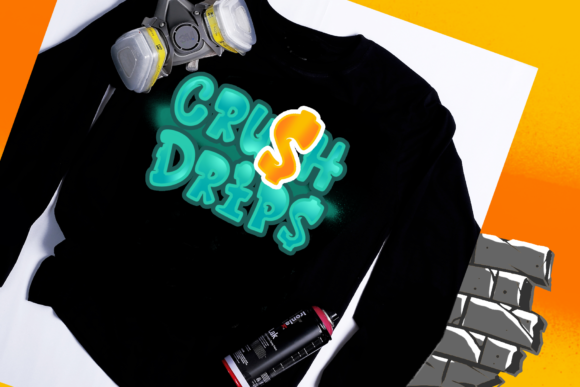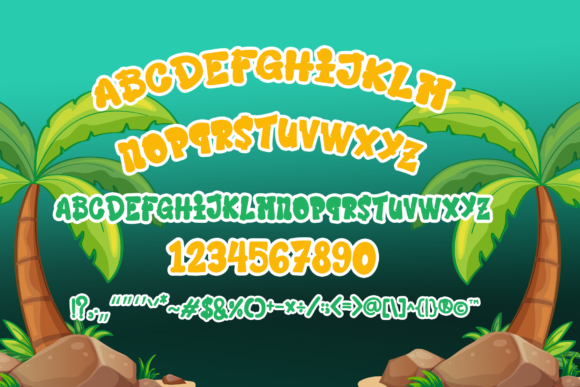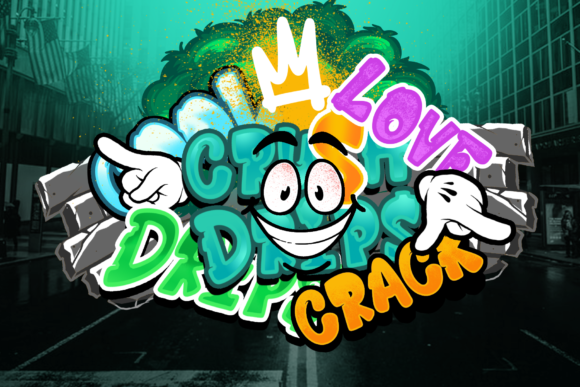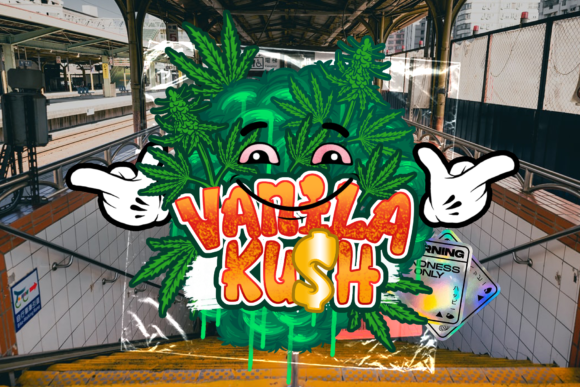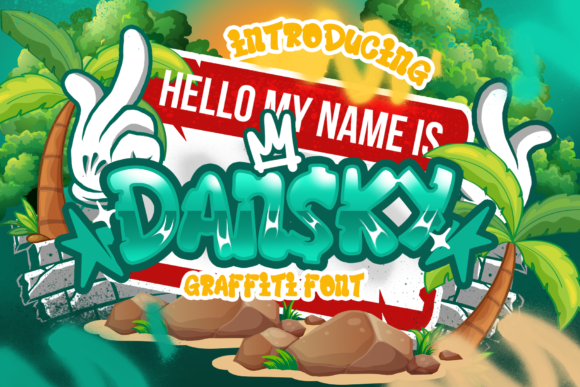
Introducing Dansky Font: The Playful and Authentic Display Font for Creative Projects
Are you looking for a font that embodies playfulness and authenticity? Look no further than Dansky Font! This cool, bubbly, and thick lettered display font is perfect for any children activity or school project, especially when combined with bright colors. In this article, we’ll dive into the features and benefits of Dansky Font, and explore how it can elevate your creative projects.
What is Dansky Font?
Dansky Font is a display font designed to make a statement. Its thick, bold letters are playful, fun, and energetic, making it perfect for projects that require a youthful and vibrant touch. The font’s bubbly personality shines through in its rounded edges and smooth curves, creating a sense of approachability and friendliness.
Key Features of Dansky Font
• Playful and Authentic: Dansky Font is designed to evoke a sense of playfulness and authenticity. Its unique lettering style is perfect for creating eye-catching headlines, titles, and captions.
• Thick and Bold: The font’s thick, bold letters make it perfect for display purposes, ensuring that your text stands out from the crowd.
• Versatile: Dansky Font is versatile and can be used for a wide range of creative projects, from children’s activities and school projects to craft tutorials and DIY guides.
• Easy to Read: Despite its bold and playful style, Dansky Font is easy to read, making it perfect for titles, headings, and short paragraphs of text.
Use Cases for Dansky Font
Dansky Font is perfect for a variety of creative projects, including:
• Children’s Activities: Dansky Font is perfect for creating fun and engaging children’s activities, such as coloring pages, worksheets, and activity sheets.
• School Projects: The font is also great for school projects, including posters, presentations, and reports.
• Craft Tutorials: Dansky Font is ideal for craft tutorials, DIY guides, and sewing patterns.
• Party Decorations: Use Dansky Font to create fun and playful party decorations, such as banners, garlands, and cupcake toppers.
Tips for Using Dansky Font
Here are some tips for getting the most out of Dansky Font:
• Combine with Bright Colors: Dansky Font looks best when paired with bright, bold colors. Experiment with different color combinations to create a unique and eye-catching look.
• Use for Headings and Titles: Dansky Font is perfect for headings and titles. Use it to create eye-catching headlines that grab attention.
• Experiment with Different Sizes: Dansky Font looks great in a variety of sizes. Experiment with different font sizes to create visual interest and hierarchy.
Dansky Font is a fun, playful, and authentic display font that’s perfect for creative projects. Its thick, bold letters and bubbly personality make it ideal for children’s activities, school projects, craft tutorials, and more. With its versatility, ease of use, and eye-catching style, Dansky Font is a great addition to any designer’s or crafter’s toolkit. So why not give it a try and see how it can elevate your next creative project?
Whether you’re a designer, crafter, or DIY enthusiast, Dansky Font is sure to inspire your creativity and bring a touch of playfulness to your projects. So go ahead, get creative, and have fun with Dansky Font!